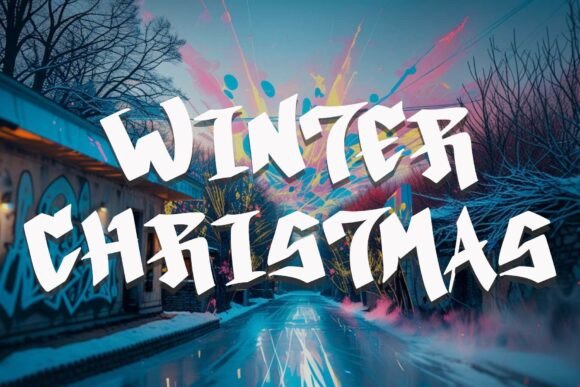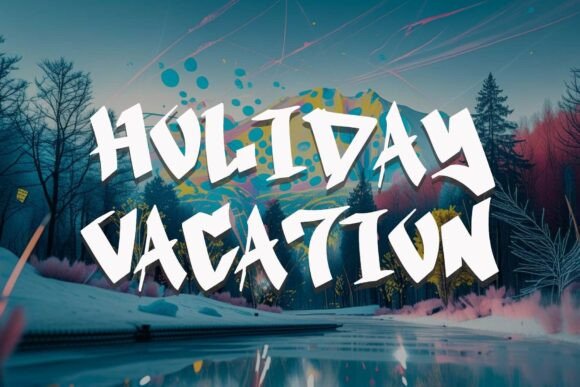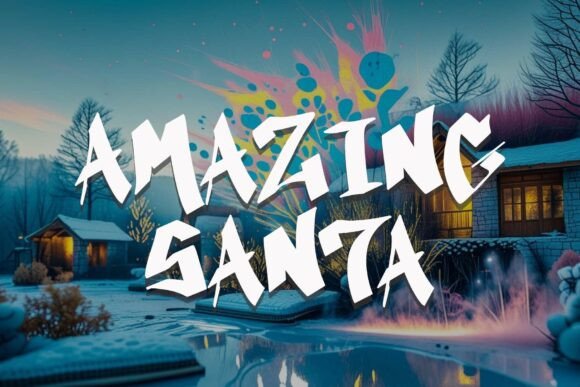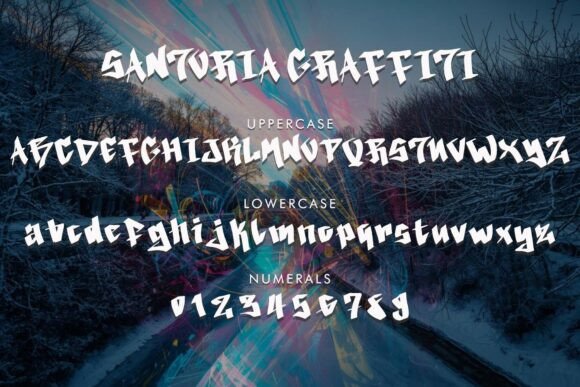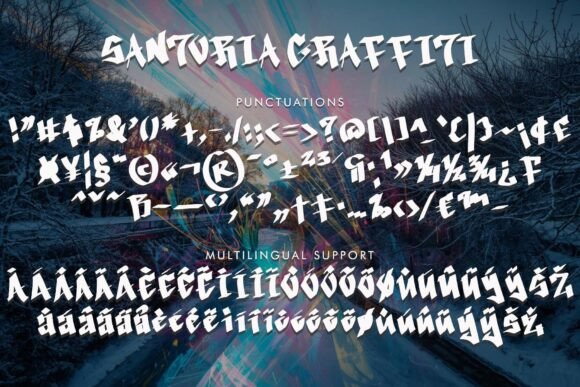
Introduction to Santoria Graffiti Font
Remember that moment when you were brainstorming ideas for your next design project, and suddenly, the perfect font popped into your mind? That’s exactly what happened to me when I stumbled upon the Santoria Graffiti Font. Its edgy, modern design and versatility made it an instant favorite, and I knew I had to share it with the design community.
As a valuable resource for designers, the Santoria Graffiti Font offers a wide range of possibilities, from creating eye-catching logos to designing vibrant posters and prints. With its transparent background and high-quality design, it’s the perfect addition to any creative project. Whether you’re working on a summer logo, a winter-themed graffiti piece, or a movie title, this font is sure to elevate your design to the next level.
Key Features of Santoria Graffiti Font
- Unique, hand-drawn design for a creative project, making it a valuable design resource.
- Transparent background, allowing for seamless integration with images and other design elements.
- Comes in a single weight, making it easy to use in a variety of design contexts.
- Designed with a graffiti-inspired aesthetic, adding a touch of urban flair to any creative project.
Honest Review: Santoria Graffiti Font
I recently had the chance to work with the Santoria Graffiti Font, and I must say, it’s been a game-changer for my creative projects. The high quality of this font is evident in its crisp lines and vibrant colors, making it perfect for designs that need a bit of edge.
One of the things I love about this font is its transparent background, which allows for seamless integration with any design. Whether you’re working on a logo, poster, or social media graphic, Santoria Graffiti Font is sure to bring your design to life.
- High-quality design with crisp lines and vibrant colors
- Transparent background for easy integration with designs
- Perfect for creative projects that need a bit of edge
- May not be suitable for formal or professional designs
- Can be overwhelming in large quantities
Overall, I’m thoroughly impressed with the Santoria Graffiti Font. While it may have some limitations, its unique design and high-quality features make it a valuable resource for any designer looking to add a bit of flair to their creative project.
Common Use Cases for Santoria Graffiti Font
The Santoria Graffiti Font is ideal for a variety of creative projects, including social media graphics, posters, flyers, and business cards. Its unique style and high-quality design make it a popular choice among designers and artists.
Is the Santoria Graffiti Font a high-quality design resource?
Yes, the Santoria Graffiti Font is a high-quality design resource that is carefully crafted to provide a unique and eye-catching look for your design projects. With its bold, graffiti-inspired style, it’s perfect for adding a touch of creativity to your designs.